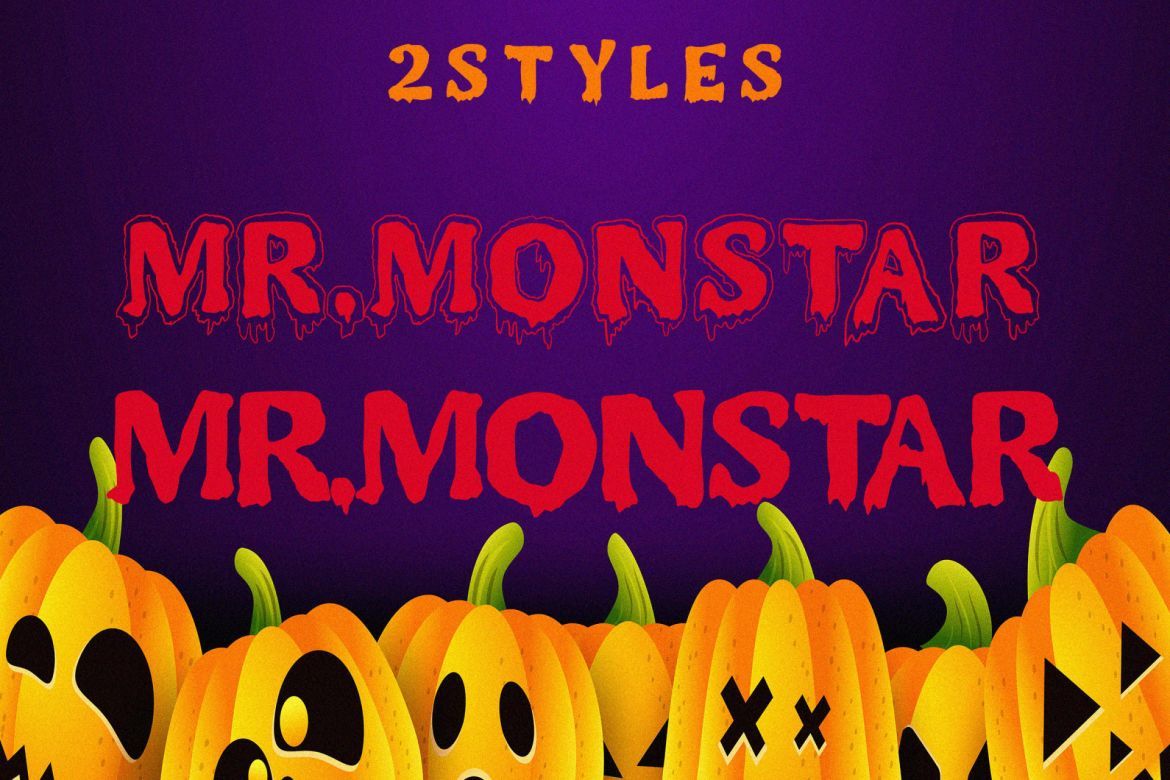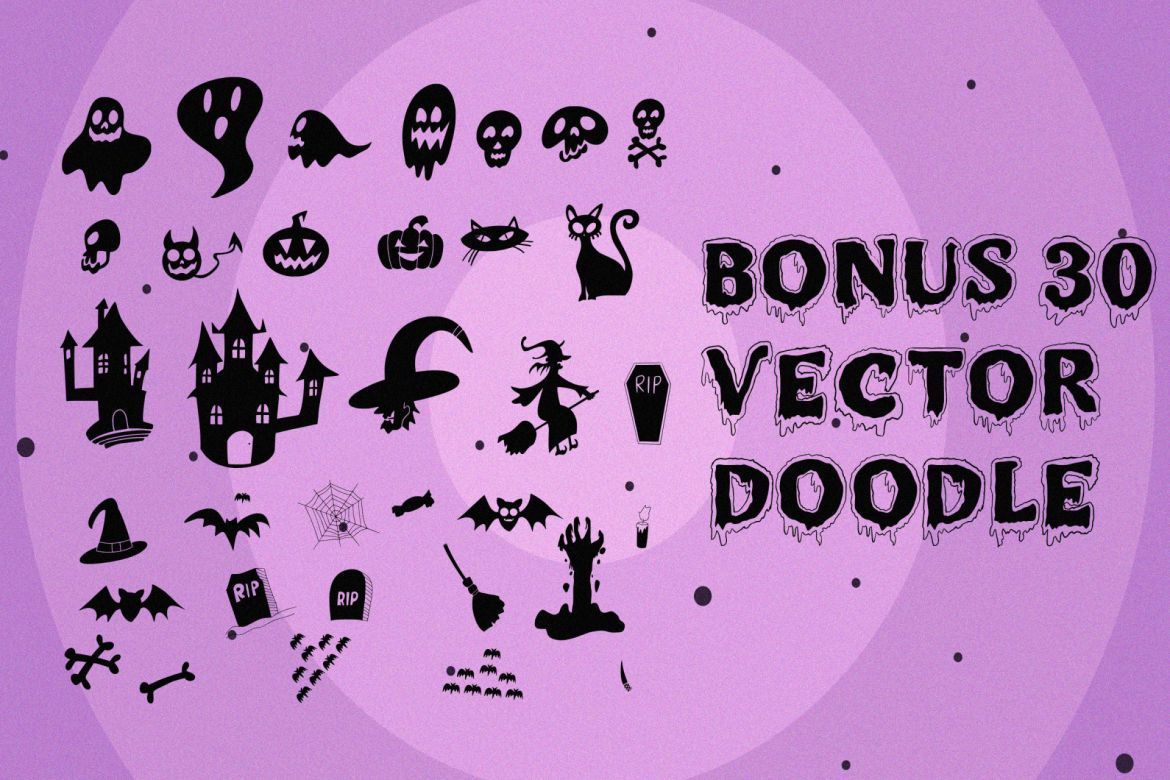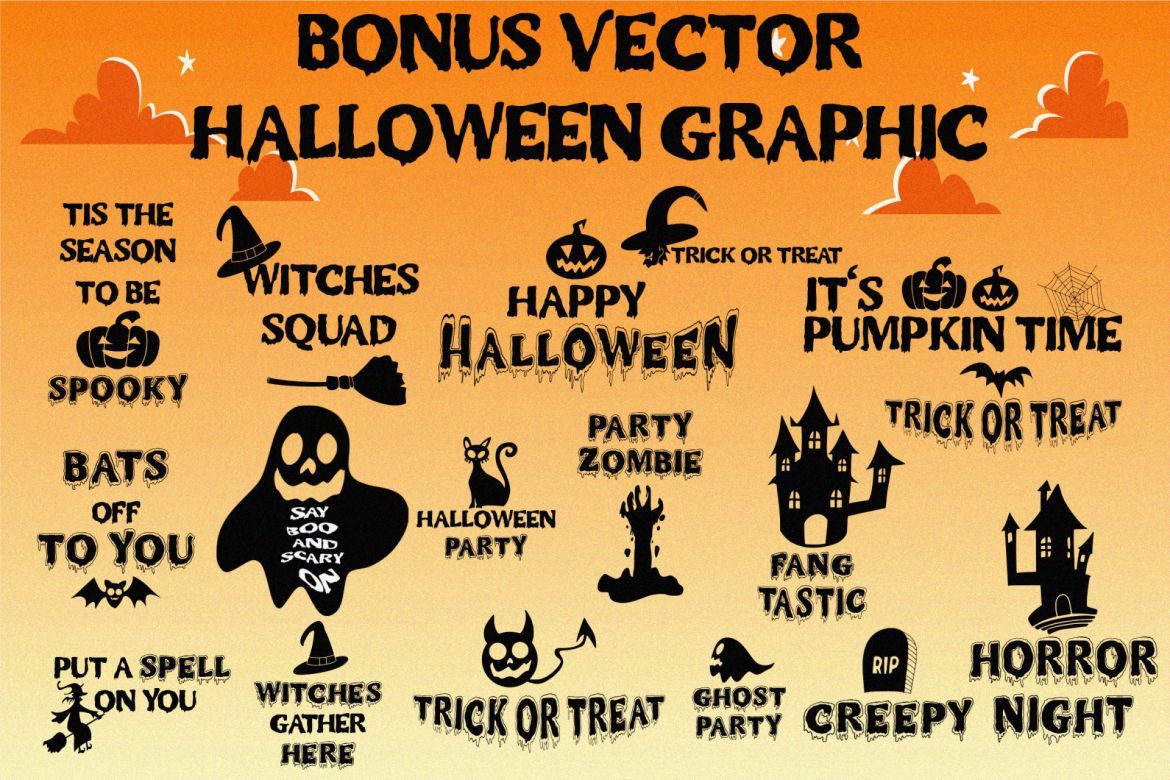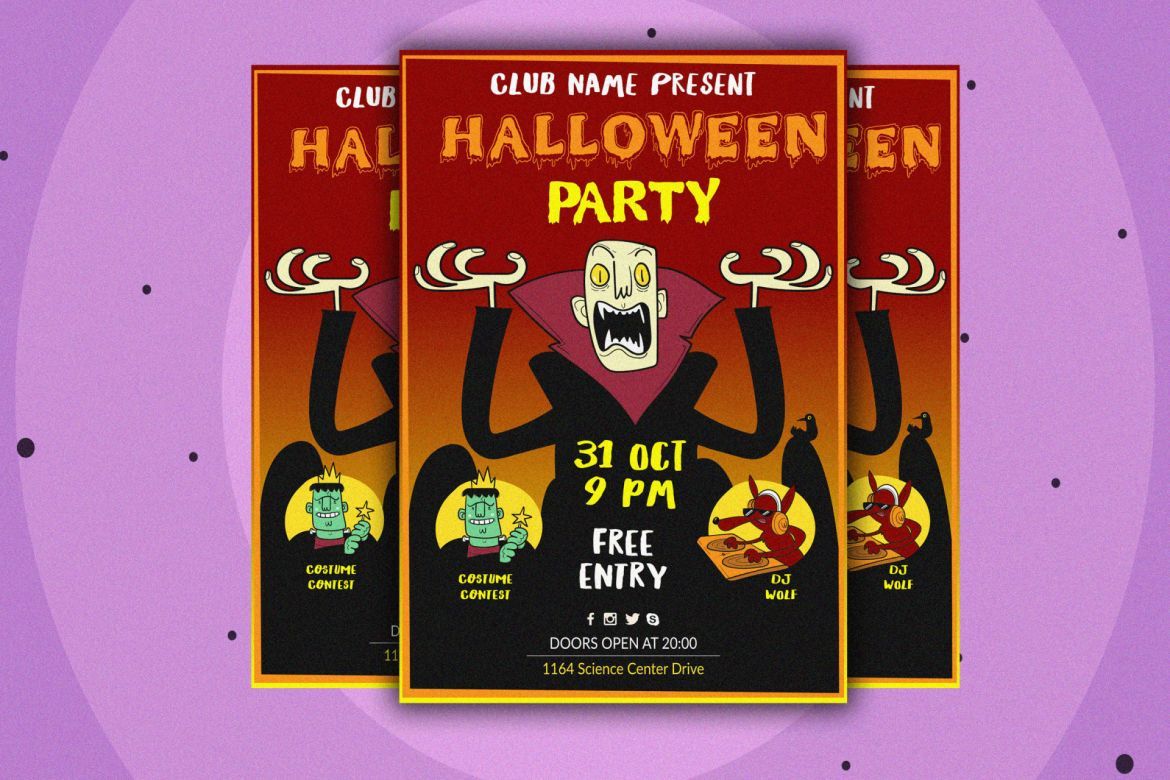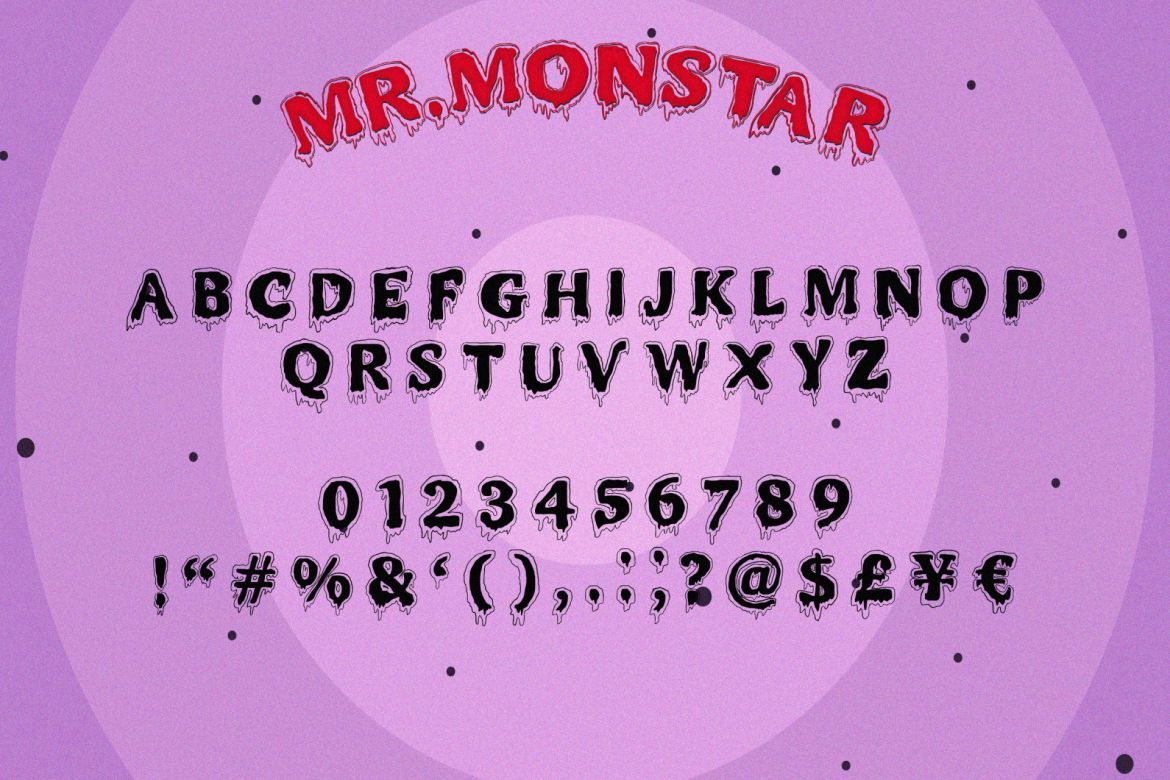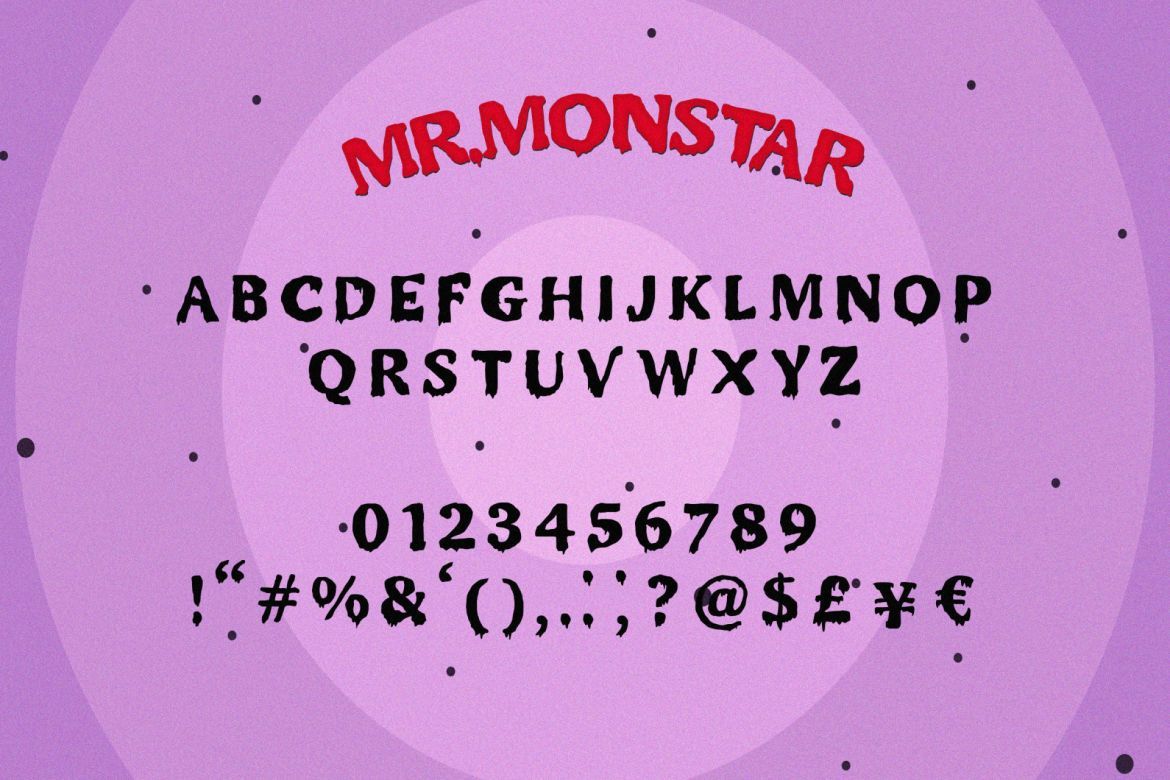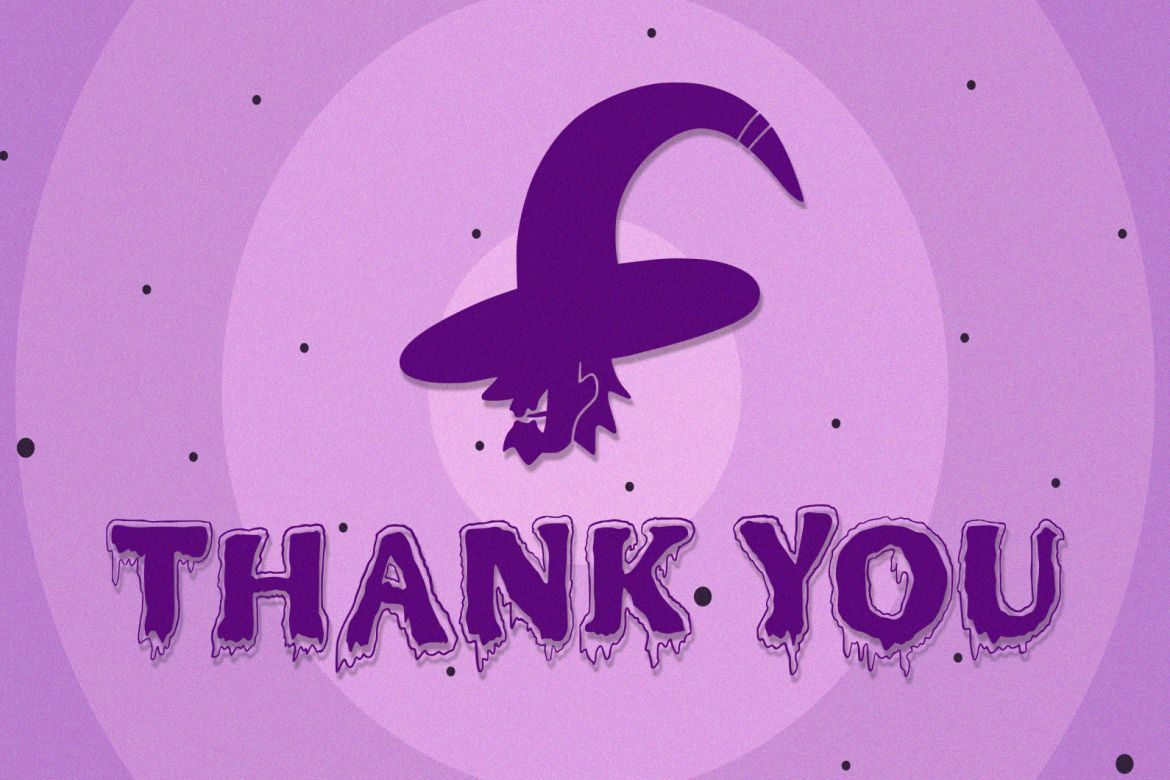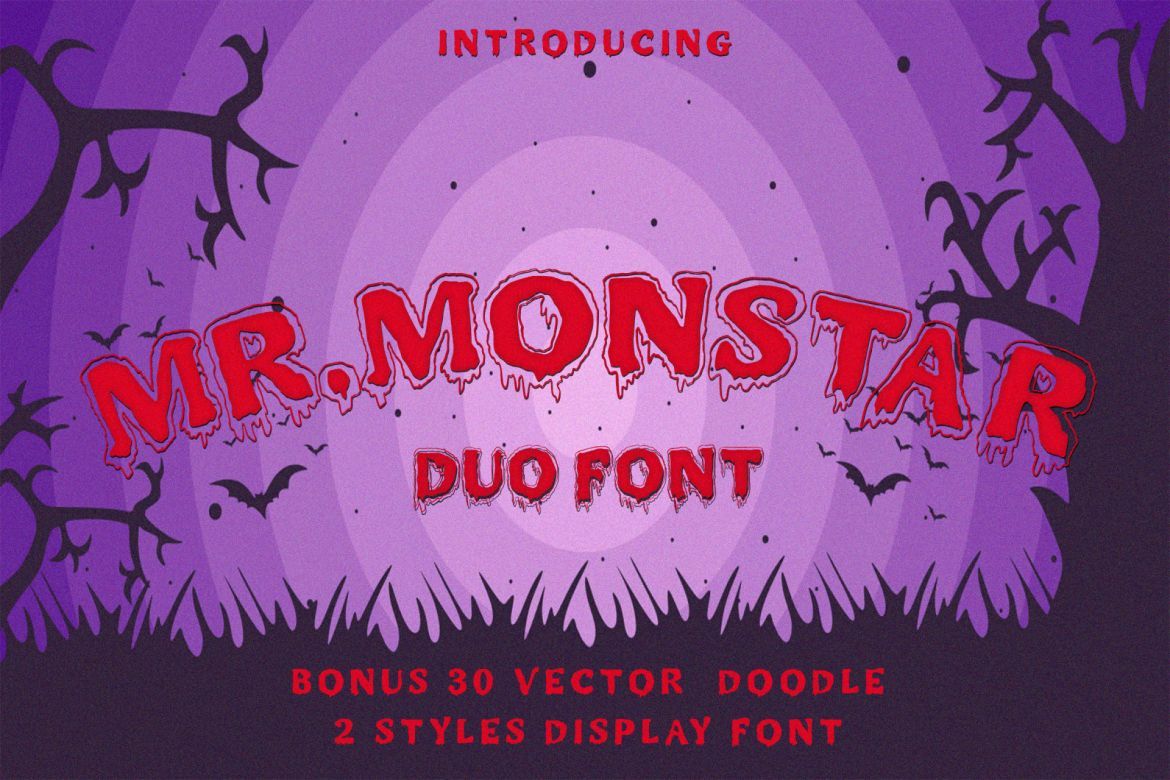
Mr Monstar Font
Introducing MR.MONSTAR Typeface best uses for headings, Logo type, quotes, apparel design, invitations, flyer, poster, greeting cards, product packaging, book cover, printed quotes, cover album, movie, etc. halloween theme font, Directed for a halloween stuff but doesn't block the possibility to use in other stuff. get ready to rock your branding needs!